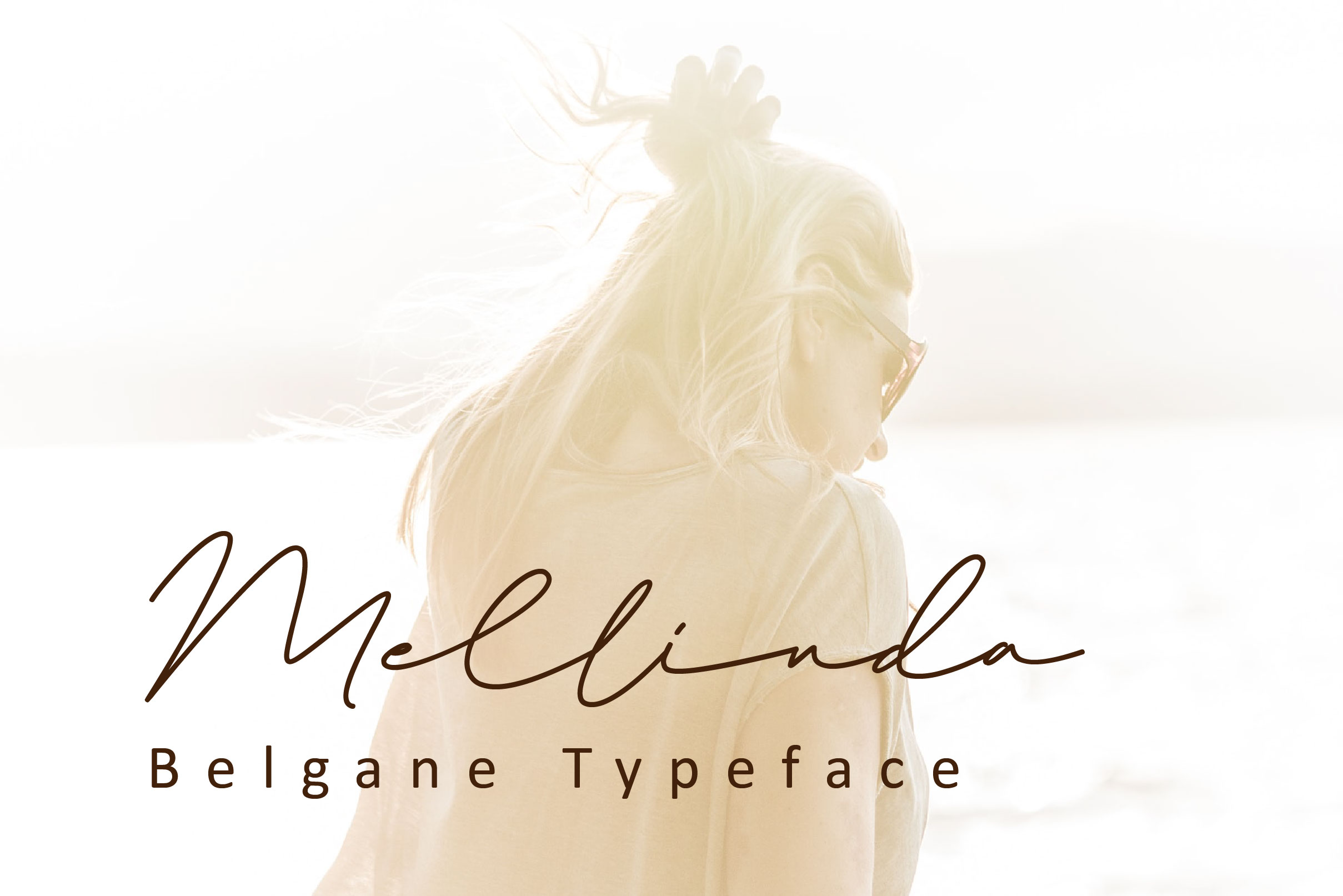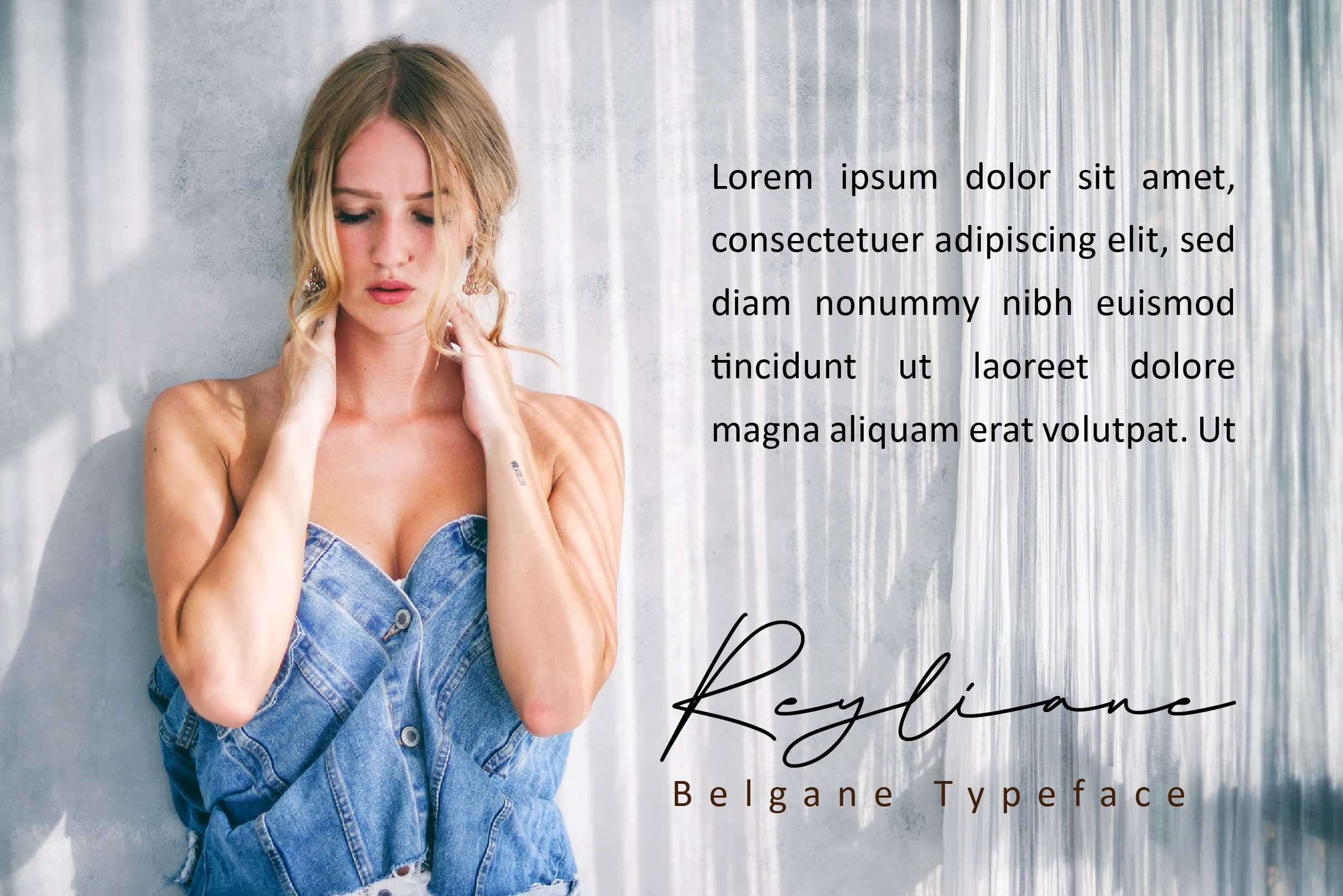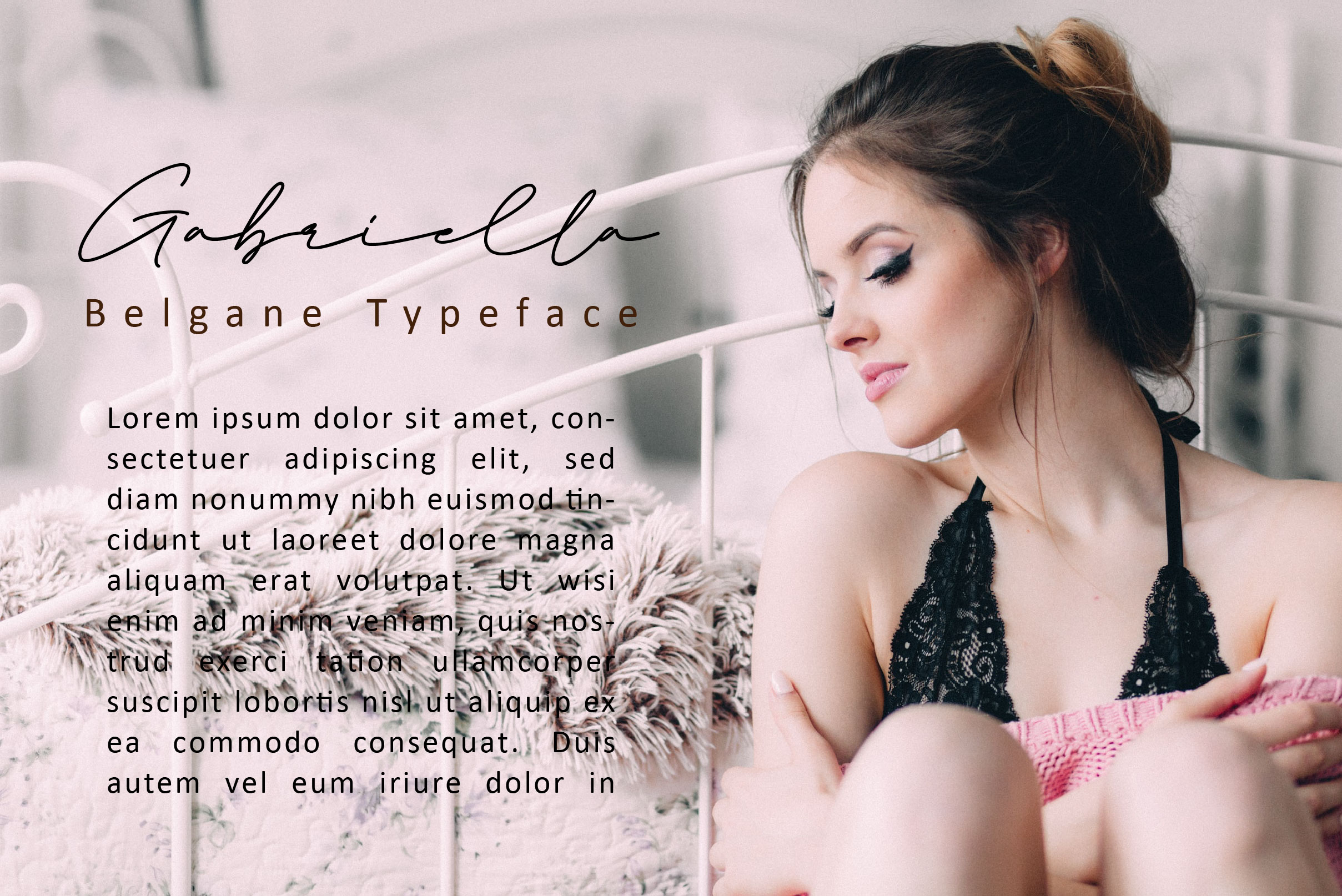
Belgane Font
Belgane Handwritten Font is a fancy script font. It features mono-line strokes, fun characters, ligatures and alternates. It is suitable for book texts, documentation, business reports, business correspondence, magazines, newspapers, posters, advertisements, multimedia, and corporate design.
– Uppercase, Lowercase, Numeral & Punctuation
– Alternate Letters, Ligature & Swash/Tail